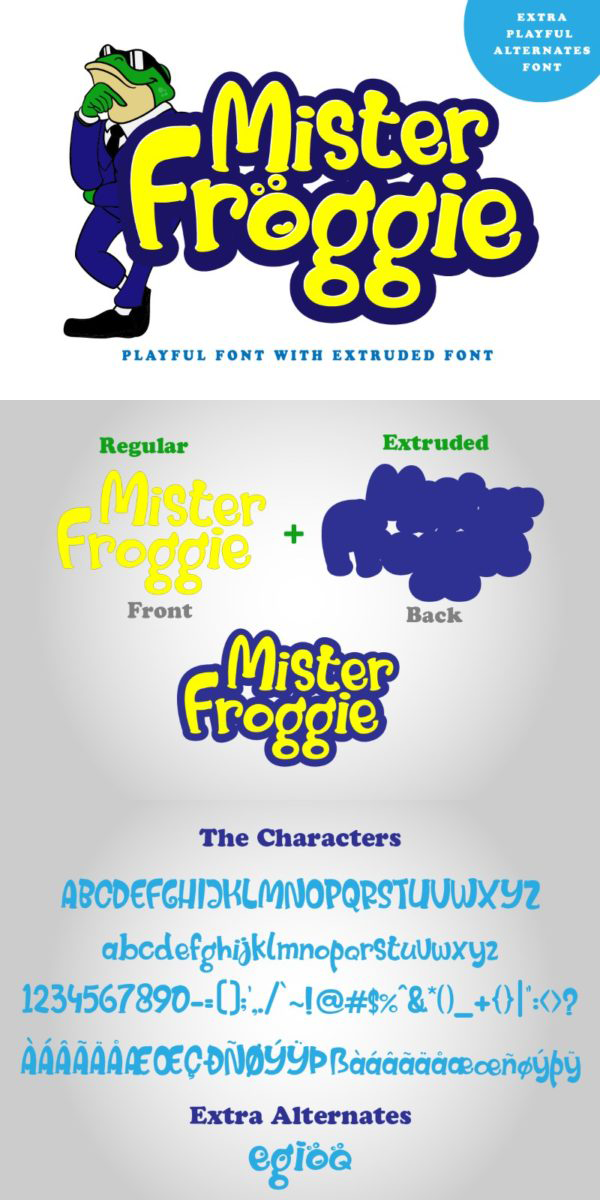
Mister Frogie Font
About Mister Frogie
Hi, Font Lovers! We would like to introduce you to the Mister Froggie Playful font, a playful font with an extruded font which is logos, branding projects, product packaging, quotes, book covers, greeting cards, and other lovely projects. The combination of a playful style and extruded font contains a full set of lowercase and uppercase letters, a large range of punctuations, numerals, multilingual supports and a number of cute alternates.
-Character Set A-Z
-Numerals & Punctuations (OpenType Standard)
Afrikaans, Albanian, Asu, Basque, Bemba, Bena, Breton, Chiga, Cornish, Danish, Dutch, English, Faroese, Filipino, French, Friulian, Galician, German, Gusii, Indonesian, Irish, Italian, Kabuverdianu, Kalenjin, Kinyarwanda, Luo, Luxembourgish, Luyia, Machame, Makhuwa-Meetto, Makonde, Malagasy, Manx, Morisyen, North Ndebele, Norwegian Bokmål, Norwegian Nynorsk, Nyankole, Oromo, Portuguese, Quechua, Romansh, Rombo, Rundi, Rwa, Samburu, Sango, Sangu, Scottish Gaelic, Sena, Shambala, Shona, Soga, Somali, Spanish, Swahili, Swedish, Swiss German, Taita, Teso, Uzbek (Latin), Vunjo, Zulu